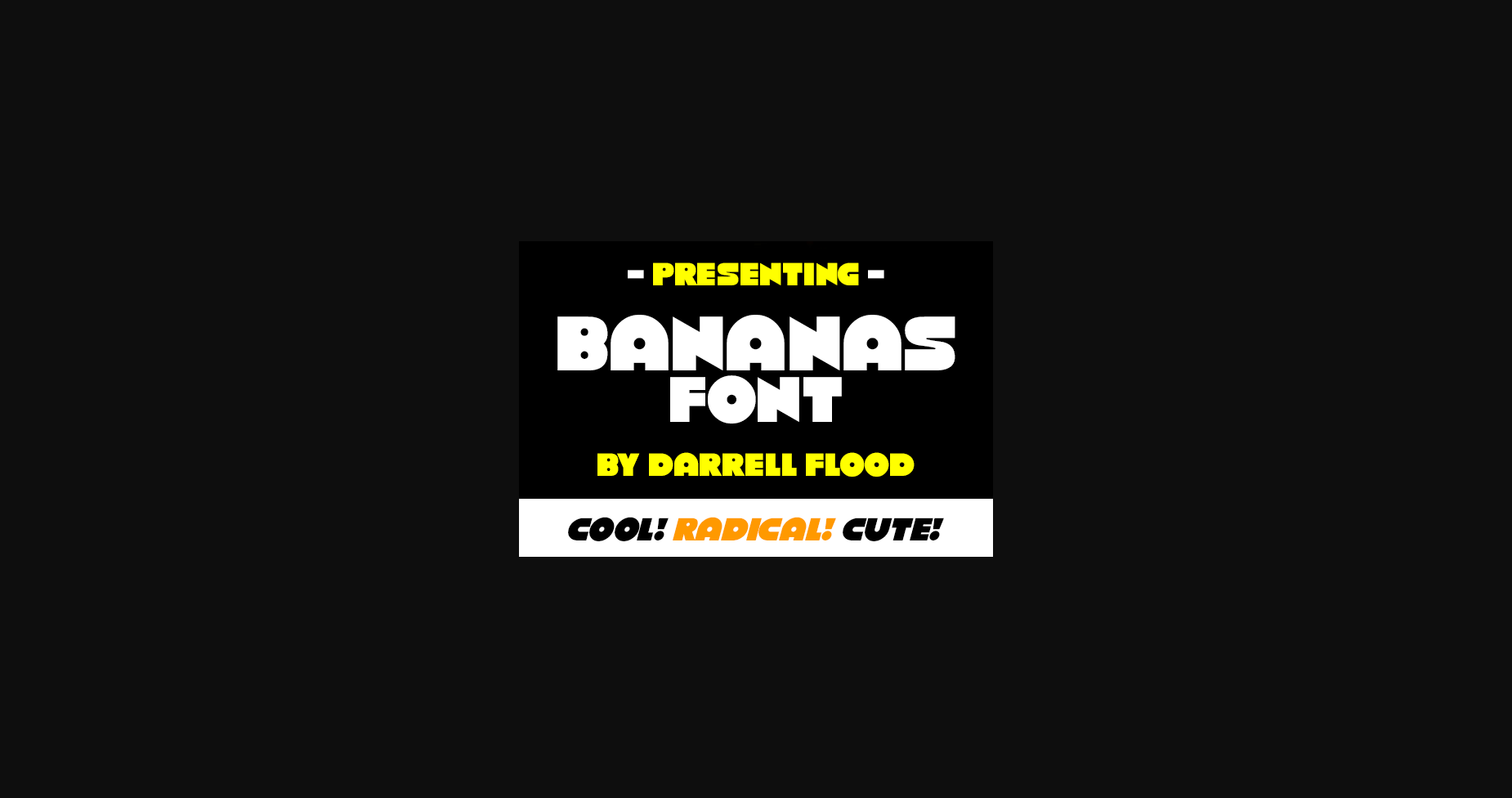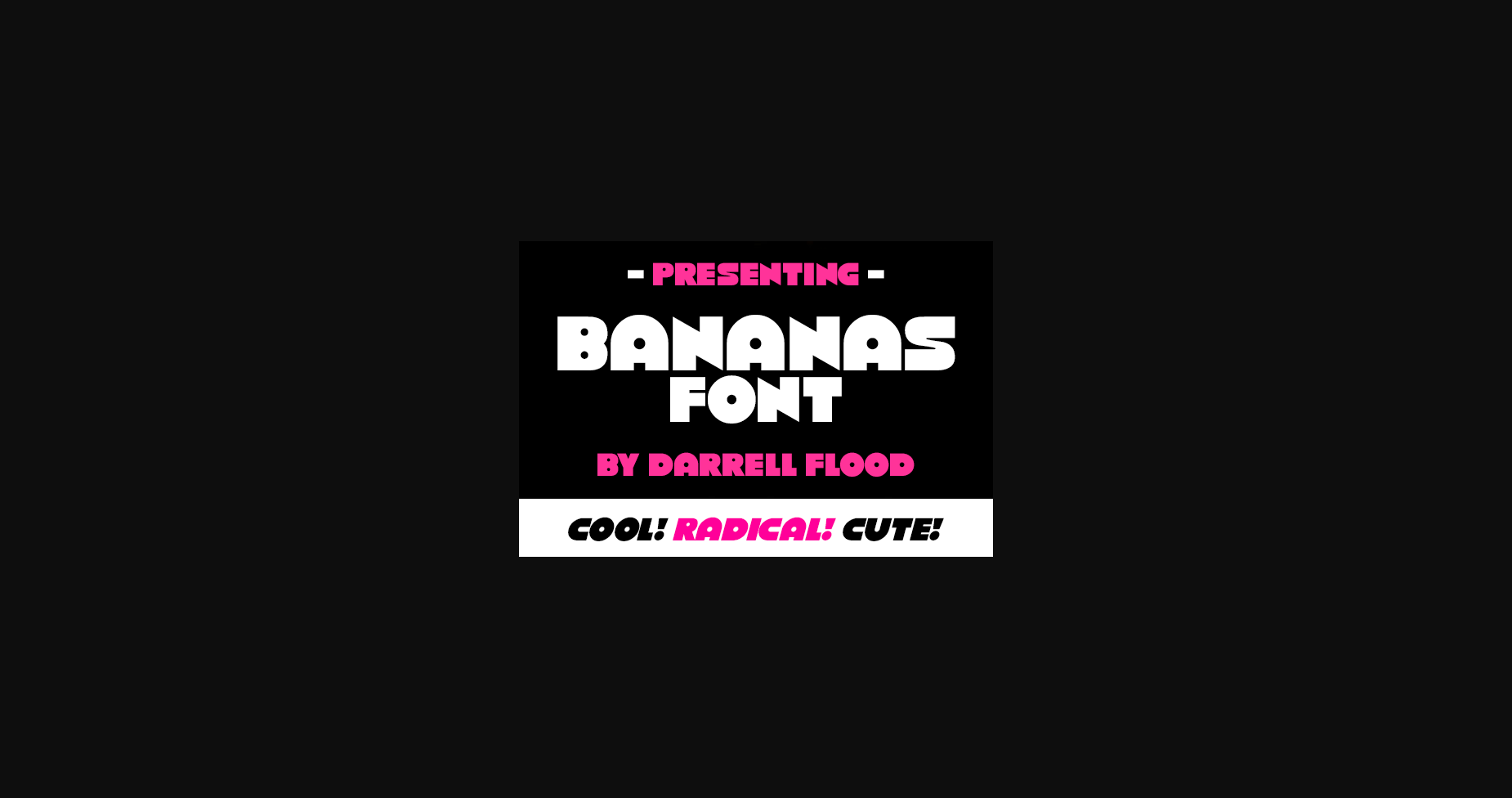
Bananas is a chunky sans-serif font in a playful, energetic style! Circles and sharp angles combine to create a high visual impact. Perfect for all kinds of projects, from comics to animation to album covers.